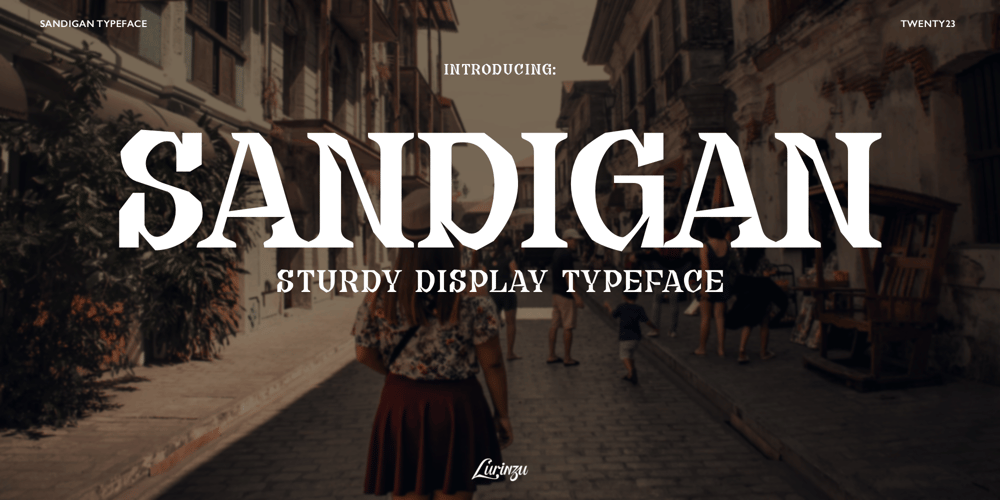
Sandigan
Sandigan font
Sandigan Font Family was designed by Lorenzo Gabriel Martinez and published by Lurinzu Studios. Sandigan contains 1 styles and family package options. “Sandigan” is an rustic, organic, sturdy and expressive display typeface that is inspired by the characteristic and vibes of male filipinos. Sandigan also means foundation in english.This typeface is developed with the intention to be used in display medias to maximize the stylized shapes of each character.This typeface is best used when you want to express elegance, class and sophistication in your designs.*This font includes letters, numbers, multi-language, and all essential marks needed.